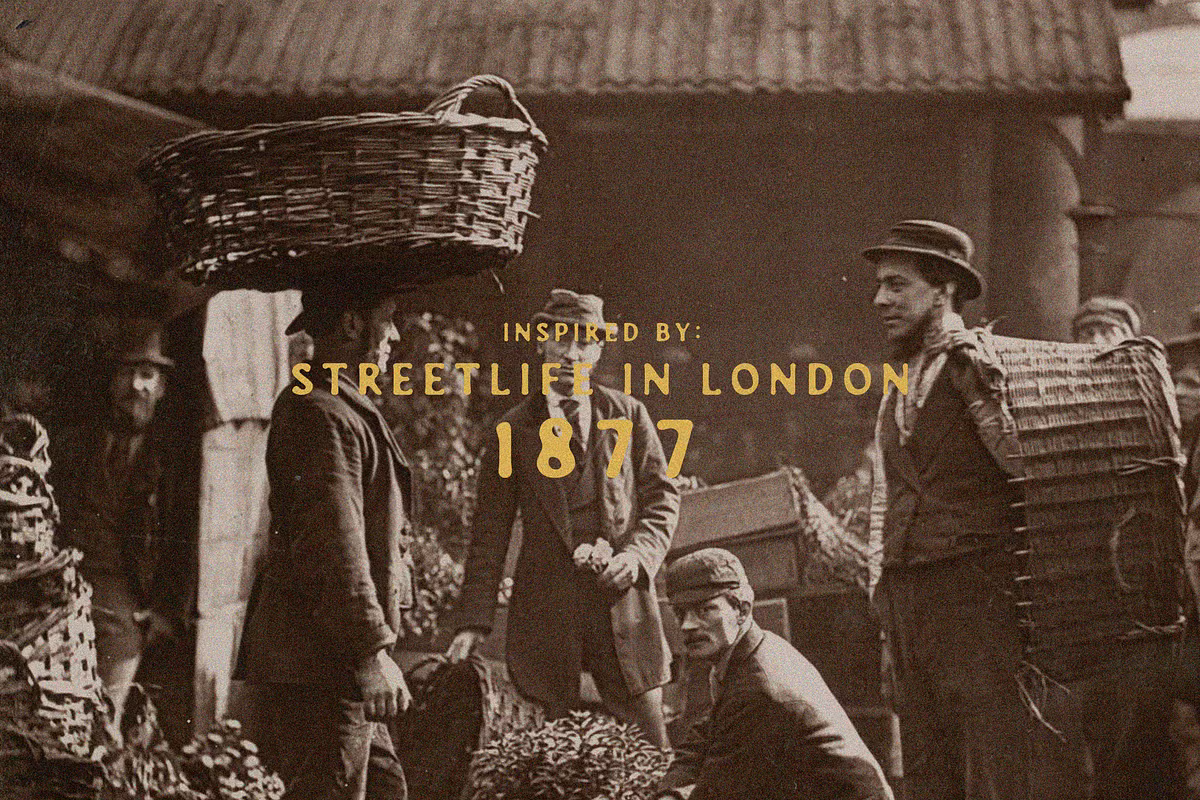
Soerip: Handdrawn Typeface Inspired by London Street Life 1877
Introducing Soerip: A Handdrawn Typeface
Soerip is a typeface. Soerip takes its inspiration from the street life of London in 1877 a time when the city was busy. Soerip captures the feel of a time. Shows the character and charm of the citys many cultures and busy streets. Soerip is built for a look and, for use. Soerip works as a tool for designers who want a look and an artistic feel, in their work. When I need that feel I reach for Soerip because Soerip gives my designs a touch of history.
Design Style of Soerip
I notice that the design of Soerip feels organic and hand drawn. I notice that the design of Soerip gives the viewer a sense of authenticity and warmth. I notice that the design of Soerip crafts each letter, with attention, to detail and shows the beauty of text. I notice that the design of Soerip mixes elements from the 19th century. I notice that the design of Soerip works well for projects that want to bring viewers in time.
Soerip has rounded and sharp edges. The mix of edges makes Soerip look lively. The strokes of Soerip have thicknesses. The different thicknesses give Soerip depth and character. Soerip stands out in print and, in digital. When you use Soerip for headlines or, for body text Soerip draws the eye. Soerip sends a message.
Character Sets and Glyphs
Soerip gives me a set of characters. The set includes letters, lowercase letters, numbers and the different punctuation marks. I can use Soerip to write ideas and feelings in my text. Soerip also has symbols that’re good for making unique brand signs or decorative parts in my designs.
Use Cases for Soerip
The versatility of Soerip makes Soerip suitable, for applications. I have seen Soerip used in ways. Here are some use cases:
- Posters and Flyers: Soerips design catches the eye. Fits Posters and Flyers well. Soerips design lets you draw attention and share your message, on Posters and Flyers.
- Branding: Use Soerip in your logo design or packaging to impart a sense of history and craftsmanship, setting your brand apart from competitors.
- Editorial Design: I notice Soerips design in magazines, books and online articles. Soerip adds elegance and personality to the written content.
- Invitations: When an event needs an artistic feel Soerip adds a charm to the invitations and the announcements. Soerip adds the charm to each invitation and each announcement.
- Soerip and Montserrat: When I look at Montserrat I see the sans‑serif shape. When I look at Soerip I see the style. Montserrat goes well with Soerip. Montserrat and Soerip together give a look.
- Soerip and Lora: I like how the serif typeface Lora pairs, with Soerip. The serif typeface Lora adds a feel and an artistic look. The serif typeface Lora improves readability.
- Soerip and Open Sans: Open Sans has lines. Soerip has a hand‑drawn feel. The clean lines of Open Sans contrast, with the hand‑drawn nature of Soerip. Open Sans and Soerip work well for headings. Open Sans and Soerip work well, for body text.
Soerip is a typeface. Soerip connects to the past. Soerip draws inspiration from the street life of London in 1877. Soerip has a design, many. A careful set of characters. Soerip is a choice, for designers who want a feel, in their work. Soerip works for materials, branding elements and editorial content. Soerip helps you tell your story with style. I have used Soerip on a flyer and Soerip gave the piece a look. Feel the past. Soerip joins your work. Soerip brings the past into what you make.